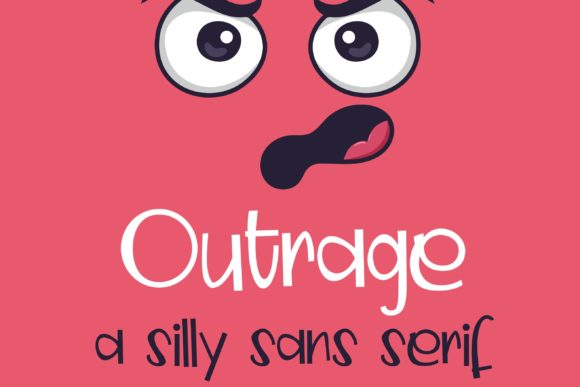
Behold, the Outrage Font: A Typographic Masterpiece That Unleashes Your Creative Genius!
In a world saturated with ordinary fonts, Outrage Font emerges as a beacon of originality, a font designed to ignite your imagination and transform your creative visions into tangible realities. This remarkable display font, meticulously crafted by the talented artisans at Illustration Ink, possesses a captivating allure that will leave an indelible mark on your designs.
Beyond its undeniable aesthetic appeal, Outrage Font boasts an unwavering commitment to versatility, seamlessly adapting to a myriad of creative endeavors. Whether you seek to captivate audiences through bold product packaging, establish a distinct brand identity, or inject life into magazine covers, Outrage Font stands ready to elevate your designs to unprecedented heights.
Unleash the boundless possibilities of Outrage Font and witness the transformation of your creative endeavors. From captivating social media posts that demand attention to elegant wedding invitations that exude sophistication, this font has the power to amplify your messages and leave a lasting impression.
Embark on a typographic adventure with Outrage Font and discover a world of limitless possibilities. Let your imagination run wild as you harness the font's innate ability to transcend boundaries and elevate your designs to new levels of excellence. The time for ordinary fonts has passed; embrace the extraordinary with Outrage Font today!